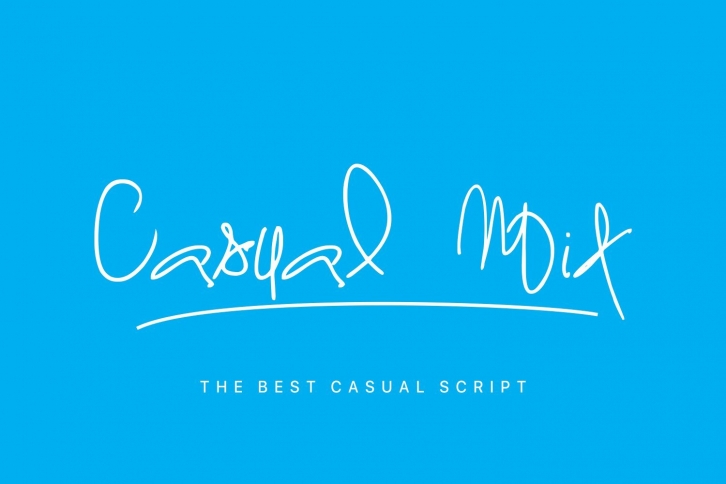
Casual Mix - A hand made font, with uppercase letters. An elegant and easy-to-read font, even being a script. It can be used in all advertising materials, perfect for: branding, business card, packaging, flyer, logo, photos, books, packaging, posters, etc ...